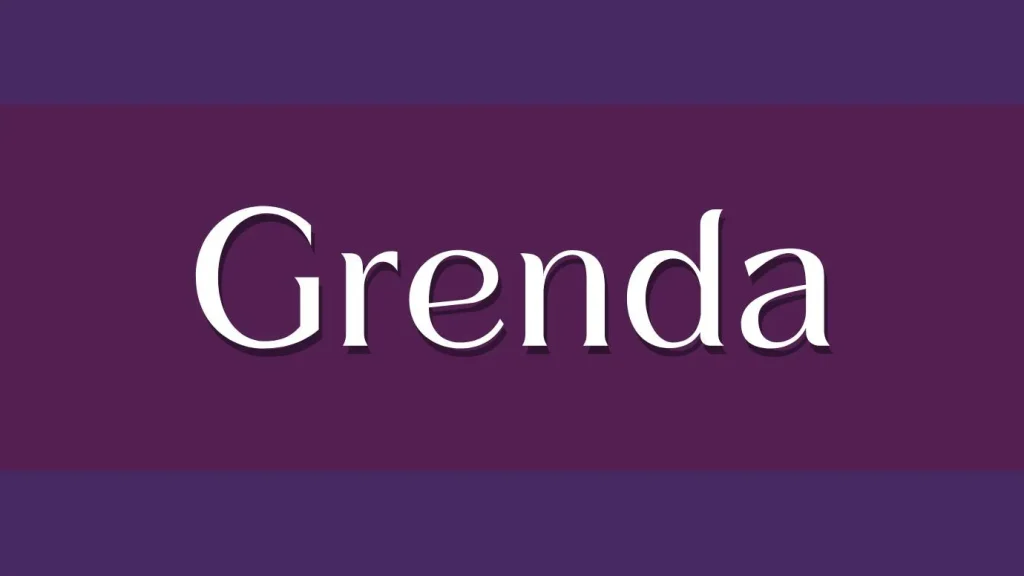
Grenda Font is a serif typeface that has a nice and attractive alphabetic style. It is an ideal style for every project and contains various capital and lower sets. You may utilize the style’s distinct characters in these font stylings to create a variety of projects.
This font is a fantastic choice if you’re searching for a multipurpose style, it is a simple-to-read font that will make your text stand out.
Usage of Grenda Font
This is a tremendous option for developing powerful and fashionable graphics. While the design can be utilized to produce striking headings, the low weight is ideal for the use of huge proportions.
Although the angled design works better for subtitles and message bodies, the form is best for headers and banners. A typeface is an excellent option if you’re searching for a beautiful font that will make your creations shine.
There is a classy look to this font style design, which is easy, soft, and easy to read. Any kind of project design can be done with this program. It has all the features that are needed to create a unique project.
In addition to reports, quotes, social media posts, logo designs, greeting cards, marriage cards, banners, and posters this design is the best choice.
The font style looks like it has a really attractive and eye-catching interface. Most designs can be created using this font style. Make your design project Splatter with this typeface. Use the autograph font with its replacement or as a pairing function.
| Name | Grenda Font |
| Designer | Yukita Creative |
| Style | Serif |
Grenda Font Preview
Is the Grenda typeface great to use?
This typeface is perfect for any design creation such as advertisements, site layouts, social media posts, brands, cards, and more plans.
Does the Grenda Font typeface have great readability?
This typeface has incredible meaningfulness. It may be a flexible text style that can be used for numerous unique projects.